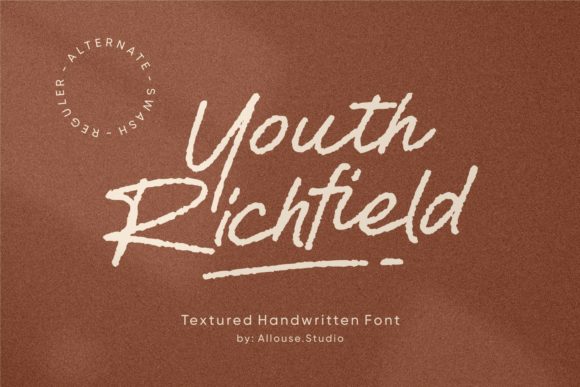
Introducing Youth Richfield, the captivating handwritten font that will add an artistic touch to your election campaign. This masterpiece from allouse.studio is designed to grab attention and leave a lasting impression. Picture your election signs adorned with Youth Richfield's distinctive script style, reaching out to voters with a sense of authenticity and connection.
Step into the spotlight and make a statement with Youth Richfield, transforming your campaign materials into visual masterpieces. Its delightful curves and intricate details evoke a sense of elegance, making every poster, banner, and social media post a true work of art. Embrace the power of Youth Richfield and watch your campaign soar to new heights.
With Youth Richfield by your side, crafting a compelling election message has never been easier. Its versatile nature allows you to convey your ideas with finesse, whether it's bold and powerful or playful and engaging. Youth Richfield will effortlessly adapt to your campaign's unique style, adding a touch of artistic brilliance to every piece of collateral.